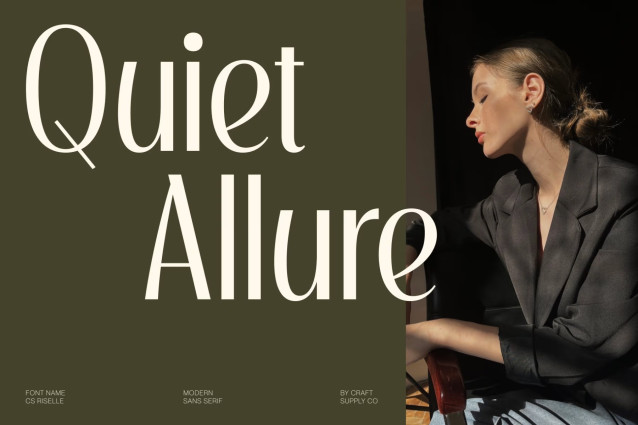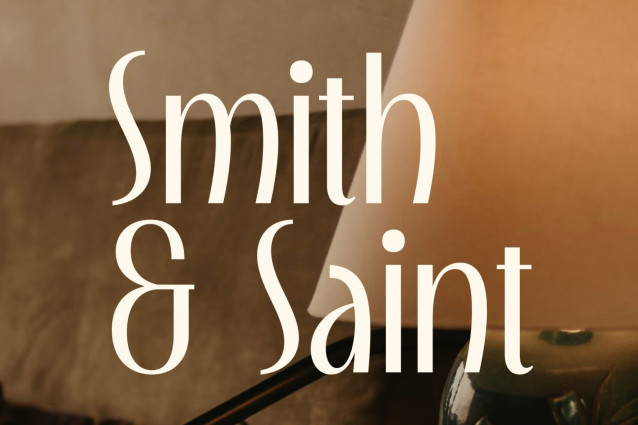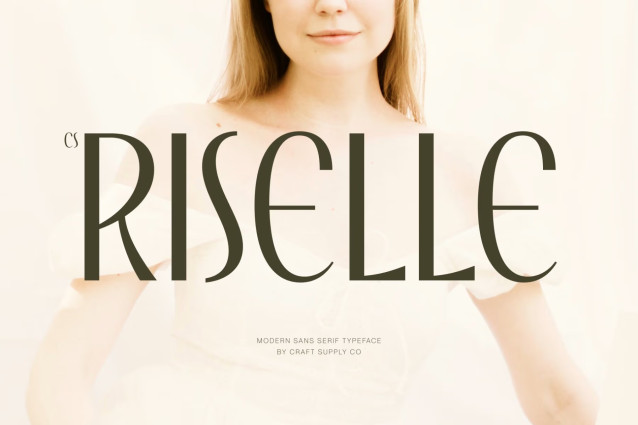
CS Riselle – Elegant Sans Serif Font
CS Riselle – Elegant Modern Sans Serif Font: Where Minimalist Luxury Meets Timeless Sophistication
Tall Proportions with Feminine Elegance
This is an elegant modern sans serif font designed with tall proportions, clean lines, and a refined minimalist aesthetic. Its graceful letterforms create a sophisticated visual rhythm that feels light, balanced, and effortlessly luxurious. The slender structure enhances its feminine appeal while maintaining exceptional clarity and versatility.
Minimalist Luxury with Editorial Refinement
This font embodies the elegance of refined editorial typography. Its understated forms and carefully balanced proportions deliver a polished appearance that feels contemporary yet timeless. Every detail is designed to communicate sophistication, making the font an ideal choice for luxury-focused creative work.